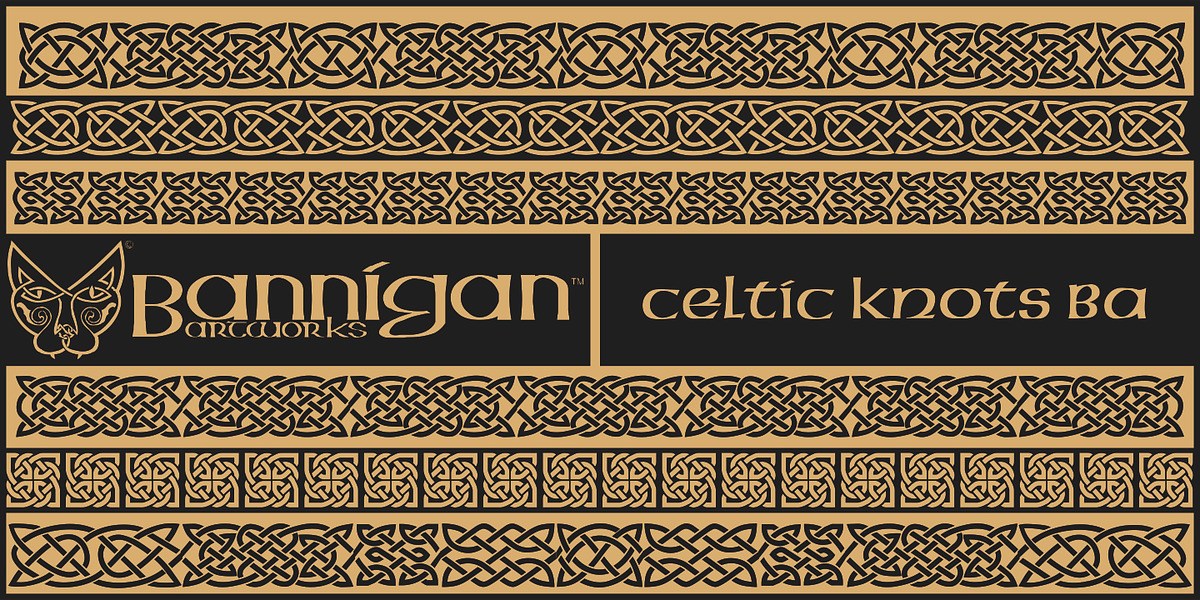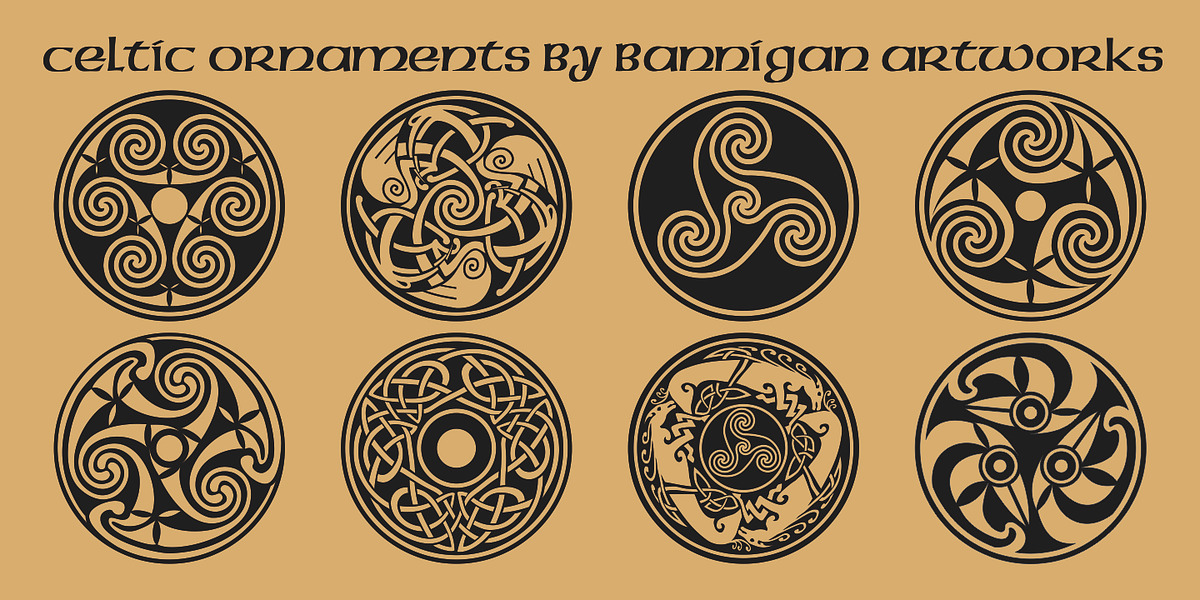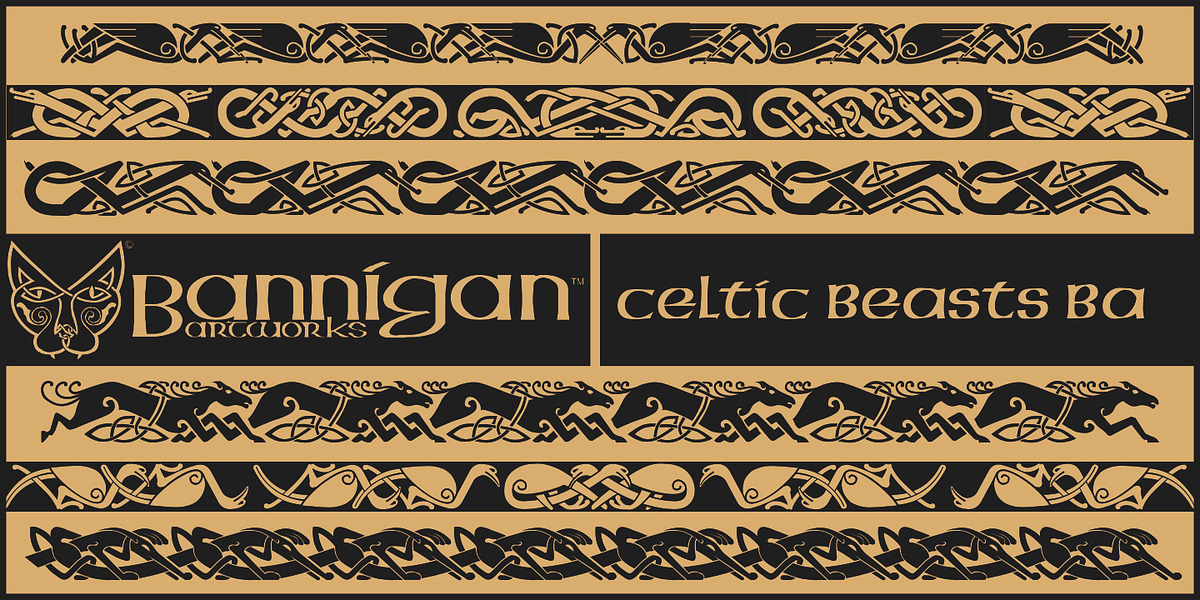
Celtic-BA
This font draws inspiration from the intricate designs found in ancient Celtic manuscripts. It is a dingbat font, meaning it consists primarily of symbols and ornaments rather than letters. These elements are stylized in a calligraphic manner, evoking the flowing lines and decorative flourishes characteristic of Celtic art.